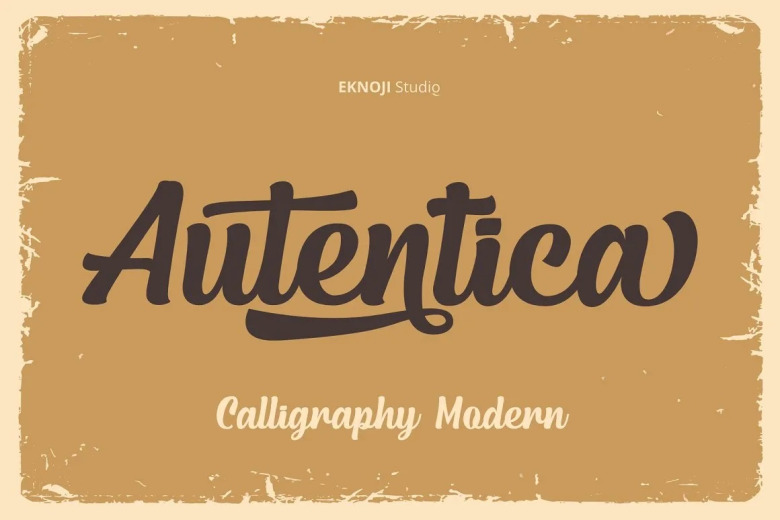
Autentica Font
Autentica is such a beautiful and strong handmade calligraphy font designed to add a modern delicacy and romantic luxury to any design project that you wish to develop! This fantastic script reads as strong, confident, dynamic, and more exceptional and can add tons of nostalgic character to your every design project. Autentica is a PUA-encoded script that makes it incredibly easy to access every glyph and swash.
Autentica Bold Calligraphy Script Font